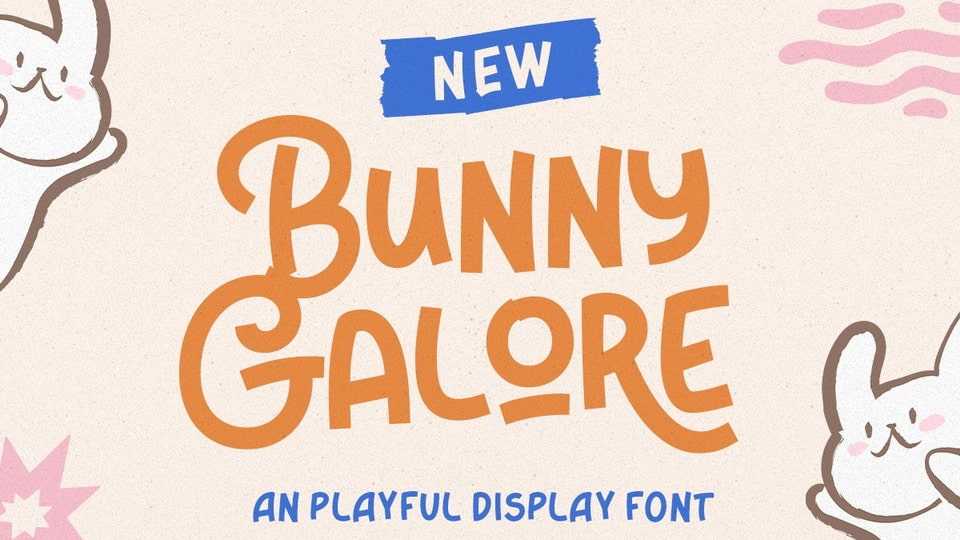
Download Bunny Galore font, a playful and stylish display typeface that adds a delightful and whimsical touch to your designs. Bunny Galore brings personality and vibrancy to your designs, making them visually captivating and engaging.